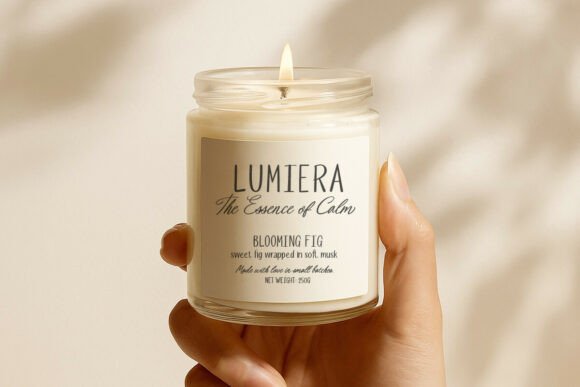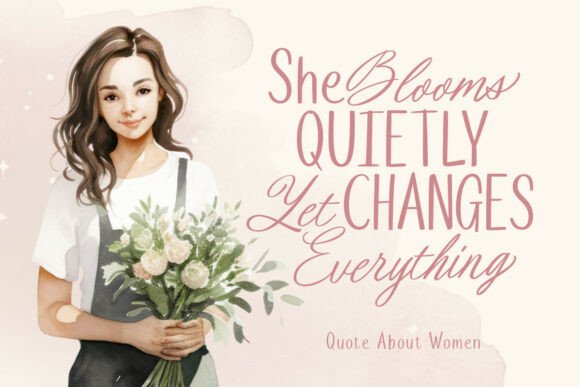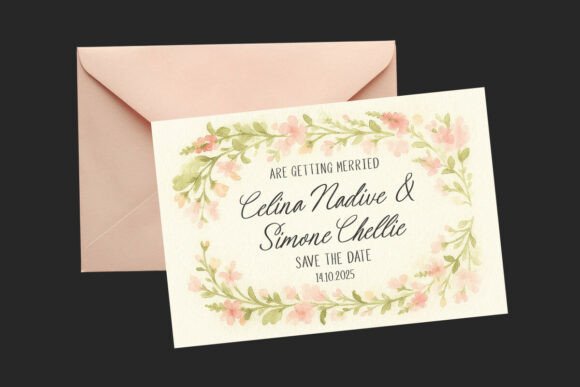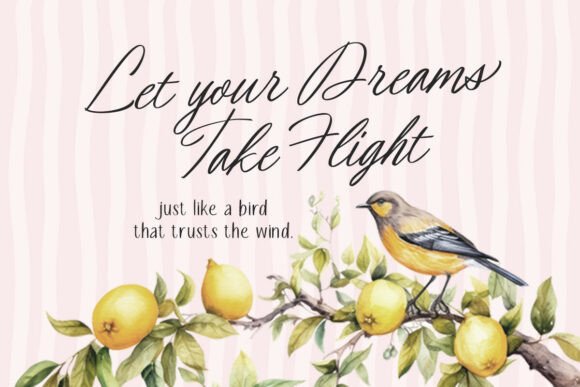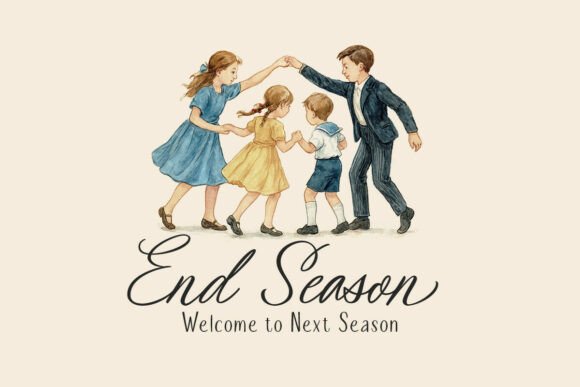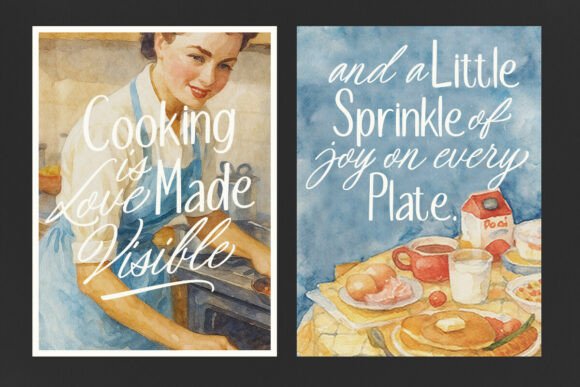
Introducing Claudia Sansbert Duo Font: Elevate Your Design with Elegance and Versatility
In the world of typography, finding the perfect font duo that combines elegance, versatility, and a touch of personal flair can be a daunting task. However, Claudia Sansbert Duo Font is here to revolutionize your design projects with its beautifully crafted handwritten duo font. This exquisite pairing of a clean, tall sans-serif style with an elegant, feminine script is designed to create a harmonious and versatile aesthetic, perfect for a wide range of applications.
The Perfect Pairing: Strength and Elegance
Claudia Sansbert Duo Font expertly pairs two distinct styles: a strong, simple all-caps sans-serif (Claudia) and a flowing, charming handwritten script (Sansbert). This combination allows for exceptional versatility in titling, branding, and packaging, making it an indispensable tool for designers. The clean lines and tall structure of the sans-serif font provide a sense of strength and stability, while the elegant script adds a touch of femininity and sophistication.
Claudia Sansbert Duo Font is perfect for lifestyle, wedding, garden, and artisanal product branding where a sense of delicate, handcrafted, and natural beauty is paramount. The pairing offers designers the ability to create visually rich hierarchies, balancing the structured strength of the sans with the personal touch of the script. This font duo is ideal for:
- Lifestyle branding: Add a touch of elegance and sophistication to your brand’s identity.
- Wedding design: Create beautiful wedding invitations, stationery, and decor with a personal touch.
- Garden and floral design: Bring a sense of natural beauty and delicacy to your garden and floral designs.
- Artisanal product branding: Elevate your product packaging and branding with a unique and charming aesthetic.
- Alternate characters and ligatures for added versatility
Why Choose Claudia Sansbert Duo Font?
Claudia Sansbert Duo Font stands out from other font duos due to its:
- Unique pairing of sans-serif and script fonts
- Elegant and feminine aesthetic
- Exceptional versatility in titling, branding, and packaging
Claudia Sansbert Duo Font is a game-changer for designers and crafters seeking a beautiful, versatile, and elegant font duo. With its unique pairing of sans-serif and script fonts, PUA-encoding, and endless design possibilities, this font duo is perfect for a wide range of applications. Elevate your design projects with Claudia Sansbert Duo Font and experience the perfect blend of strength, elegance, and sophistication.